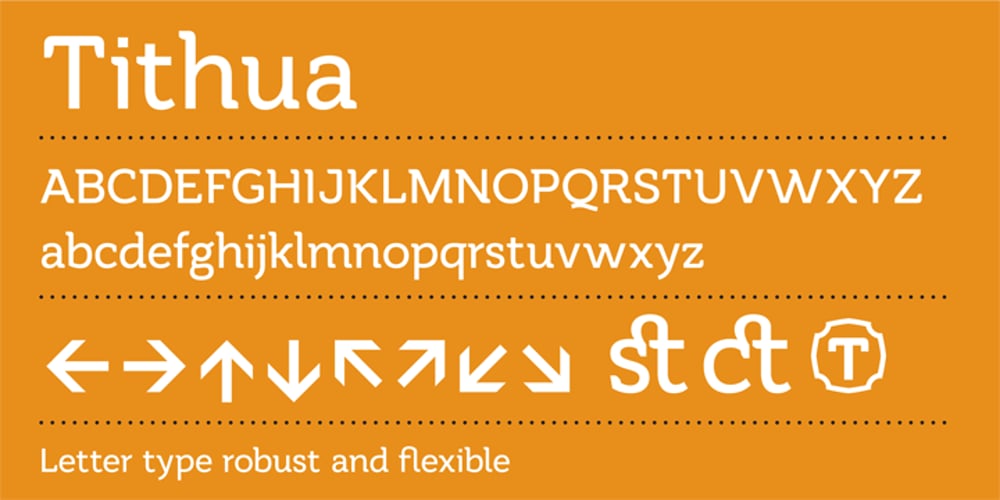
Tithua Font Family was designed by Santiago Silva and published by Muykyta. Tithua contains 5 styles and family package options. Tithua is a modern font with strokes clear and well marked, easy to read and simple design. The curved shape on the slab terminations give a harmonious and pleasant smoothing which removes stiffness and enriches the design. For now comes in five different widths and includes Latin extended-A characters and some OpenType features.